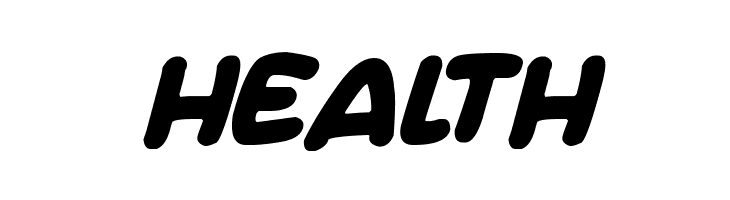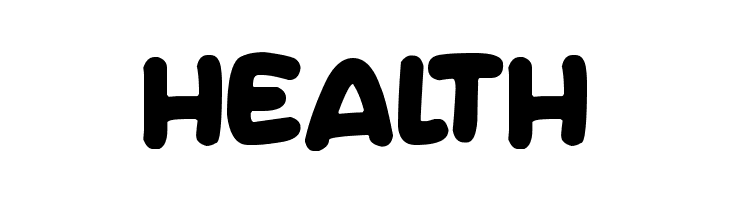
• Jumping
( Darrell Flood )
A playful, bold font with rounded, bubbly characters.
• Jumping Italic
( Darrell Flood )
A bold, italic font with rounded edges and a playful, dynamic style.